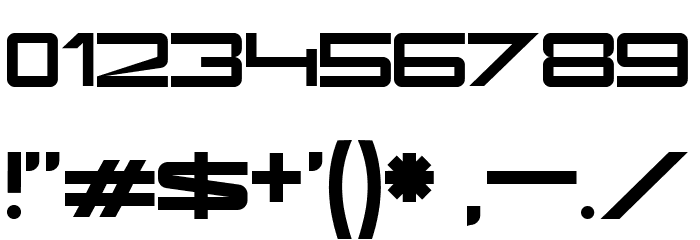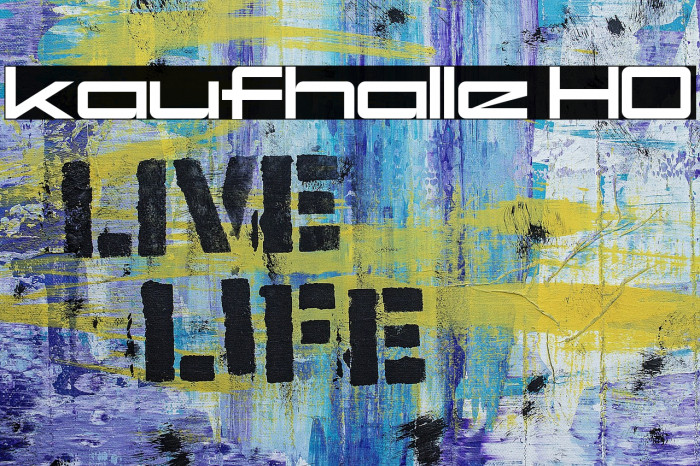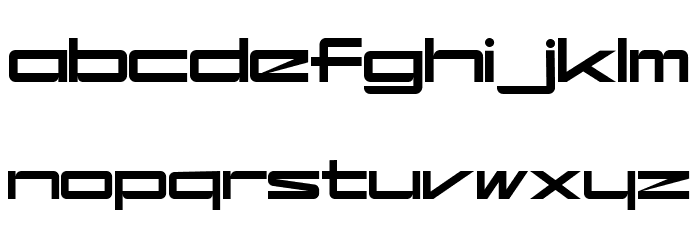
kaufhalle HO Font
This font exhibits a modern, geometric style with a strong emphasis on angular shapes and clean lines. The uppercase and lowercase letters maintain a consistent height, contributing to a uniform appearance. The characters are constructed with a square-like structure, giving them a futuristic and technical feel. The numerals and special characters follow the same design principles, ensuring a cohesive look across all glyphs. The font's design is minimalistic yet bold, making it suitable for projects that require a contemporary and edgy aesthetic.
A modern, geometric font with angular shapes and a futuristic feel.